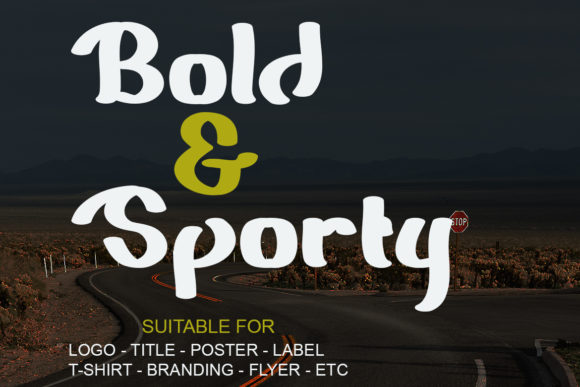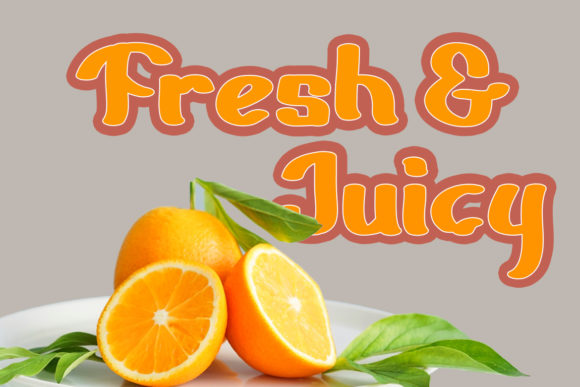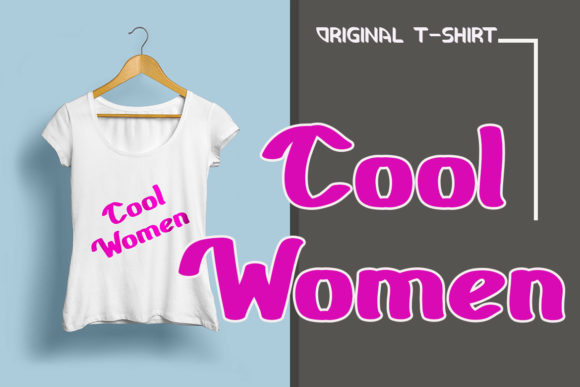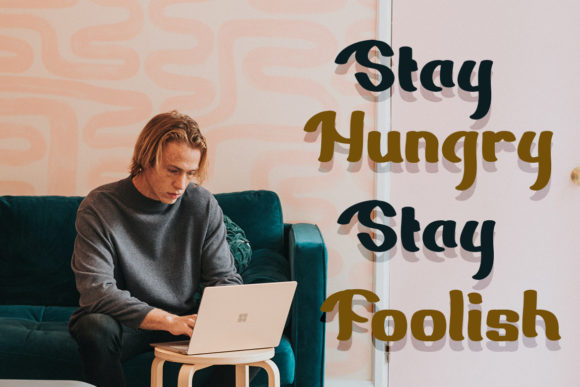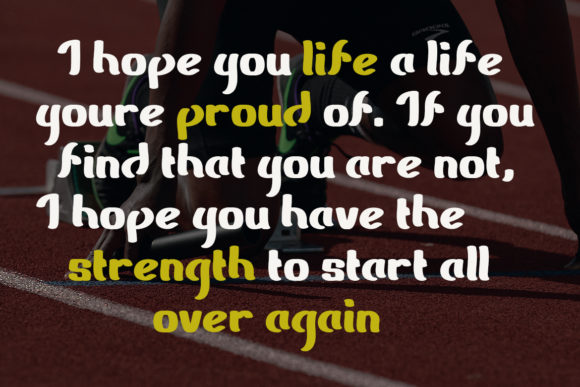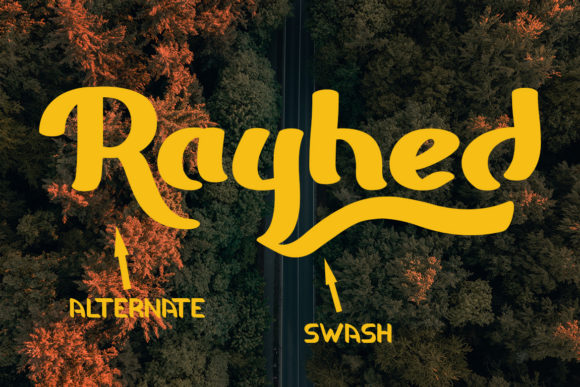
Introduction to Rayhed Font
Do you remember the moment when you first discovered a font that perfectly captured the essence of your creative project? For designers, finding the right design resource can be a game-changer. One such discovery is the Rayhed Font, a bold display font that is sure to bring a smile to your face.
With its childlike playfulness, the Rayhed Font is perfect for kids and school projects that require a dash of fun and personality. Whether you’re designing a children’s book, a website, or a social media campaign, this high-quality font is sure to make your project stand out. Plus, with a transparent background, you can easily integrate it into your design without any hassle.
Key Features of Rayhed Font
- Transparent background, allowing for easy customization and flexibility in design composition.
- Includes a comprehensive set of glyphs, making it an ideal choice for designers working on complex, multilingual projects.
- Available in 4 different font weights, providing designers with a range of options to suit their specific design needs.
- Designed with a clean and modern aesthetic, Rayhed Font is perfect for use in logos, branding materials, and digital interfaces.
Honest Review: Rayhed Font
One of the standout features of the Rayhed Font is its transparent background, which makes it easy to layer over other design elements. I’ve found this to be particularly useful for creating visually appealing graphics and logos. ✨ The font also boasts a high-quality design that looks great at various sizes and resolutions.
- ✨ High-quality design suitable for a variety of creative projects
- ✨ Transparent background for easy layering
- ⚠️ Limited character set may require additional fonts for certain projects
Overall, I’m impressed with the Rayhed Font and would recommend it to designers looking for a unique and versatile font for their creative projects.
To get the most out of Rayhed Font, ensure you use it with a transparent background to achieve a clean and professional look. Experiment with different font sizes, colors, and combinations to create unique and eye-catching designs.
Rayhed Font is suitable for a wide range of creative projects, including:
- Logo designs
- Graphic designs
- Document design